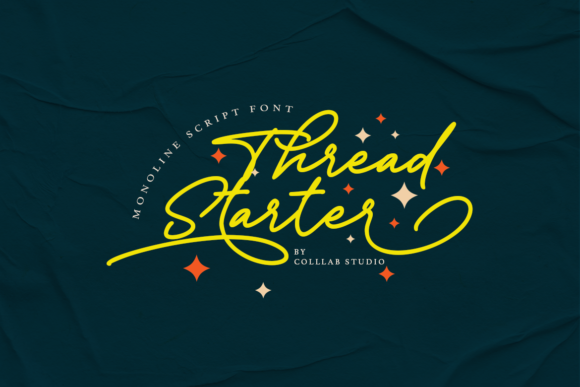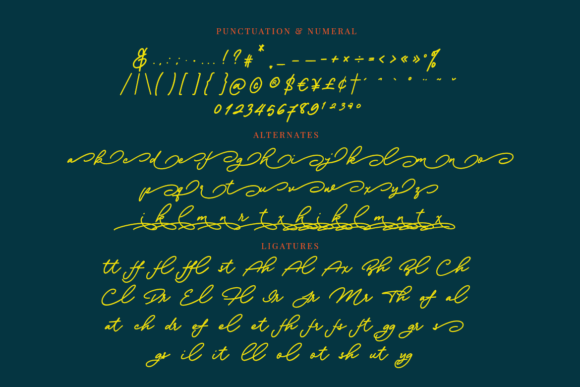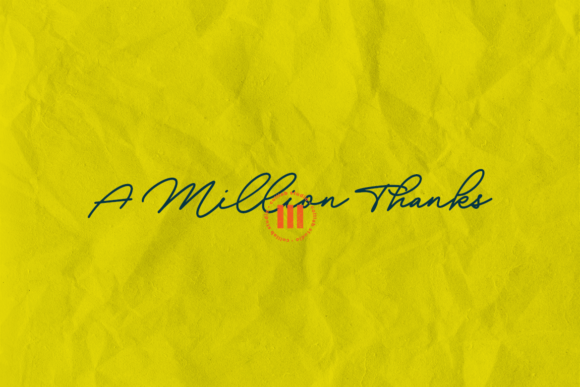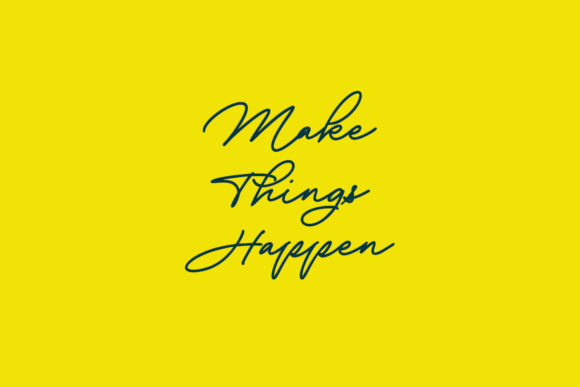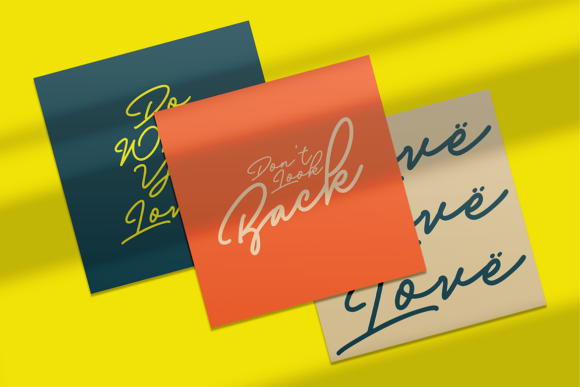
About Thread Starter Font
Thread Starter is an outstanding handwritten font. This versatile script font has a wide spectrum of applications ranging from greeting cards to headlines.Thread Starter is PUA encoded which means you can access all glyphs and swashes with ease!